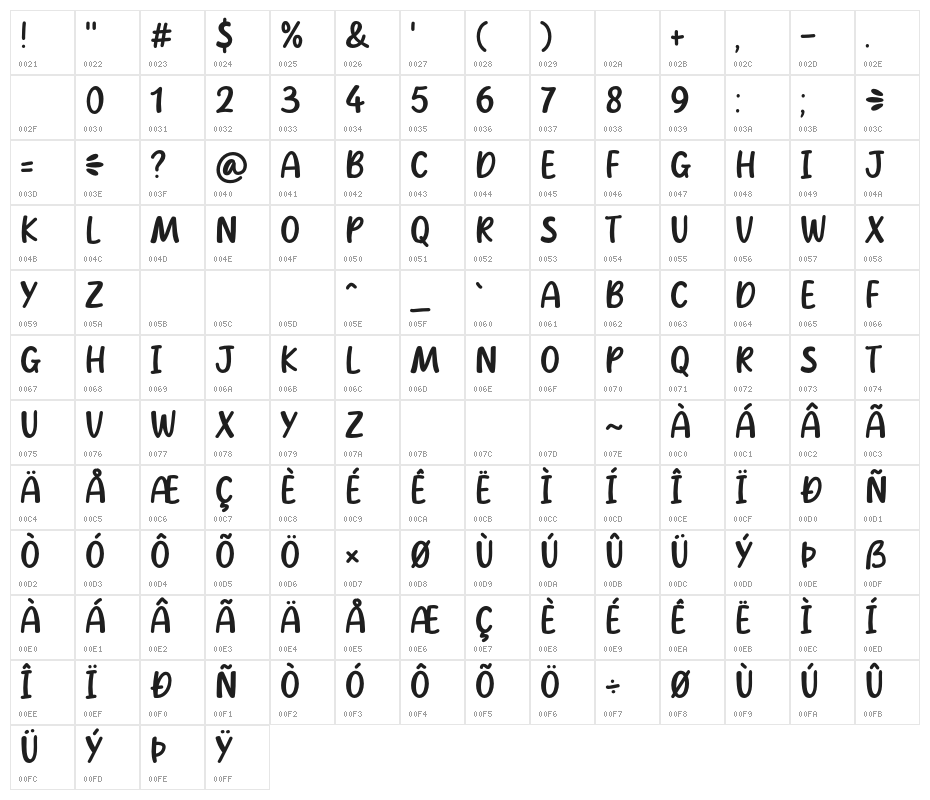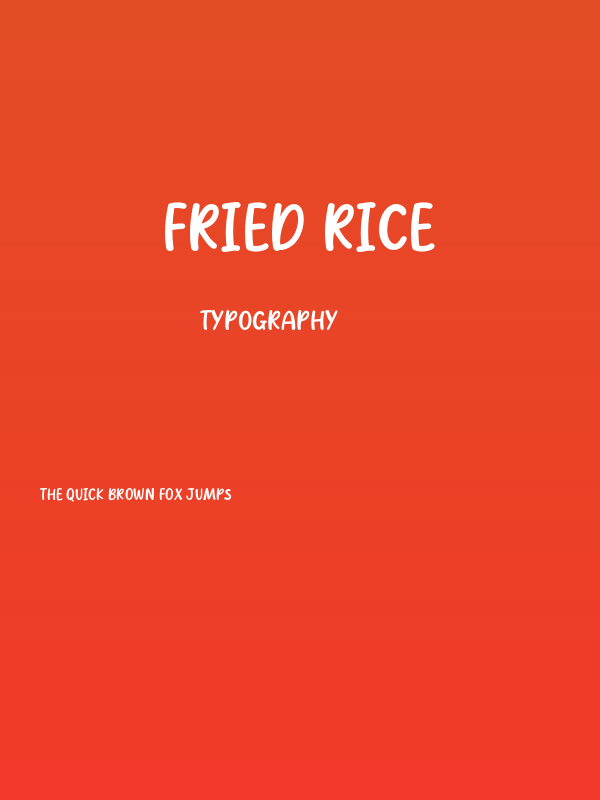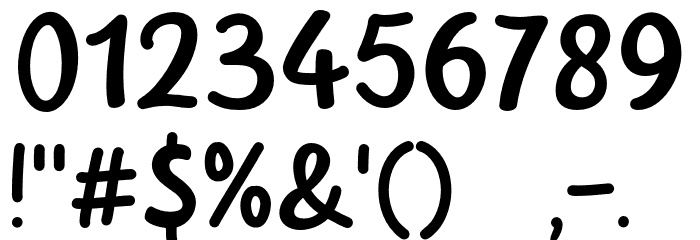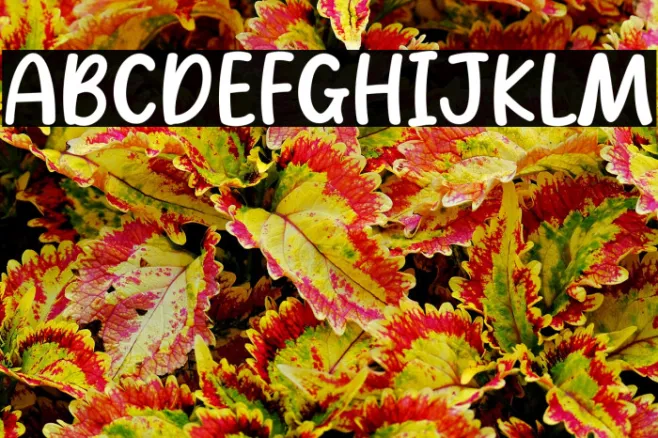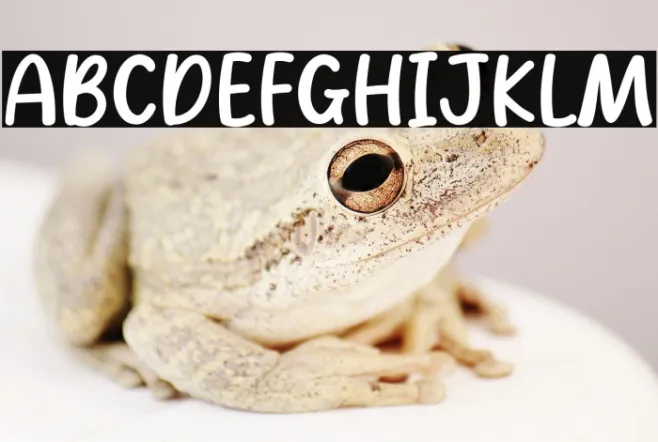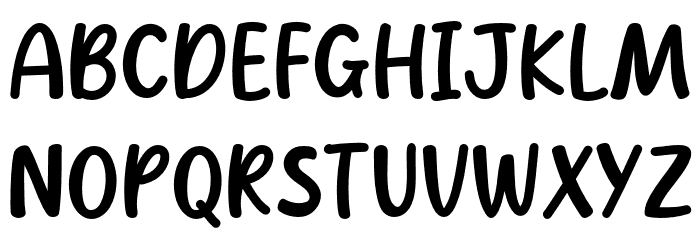
Fried Rice Font
Fried Rice Description
This font features a playful and casual handwritten style, characterized by its bold and rounded letterforms. The strokes are consistent in thickness, giving it a uniform appearance. The letters are slightly slanted, adding a dynamic and informal feel. The overall design is approachable and friendly, making it suitable for a variety of creative projects. The numerals and special characters maintain the same playful aesthetic, ensuring cohesiveness across all elements.
| Proposed Projects | Ideal for children's books, casual branding, social media graphics, and playful invitations. |